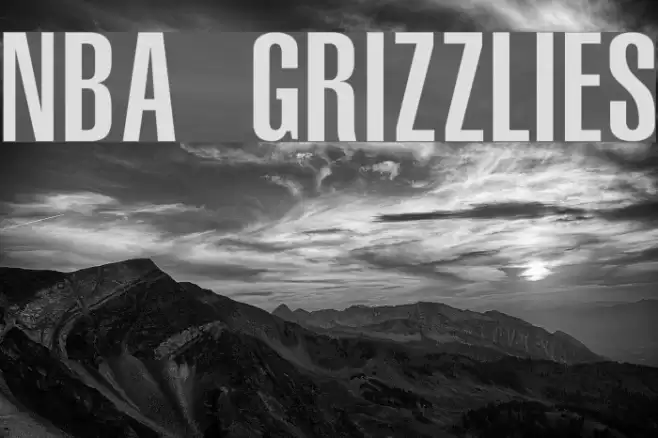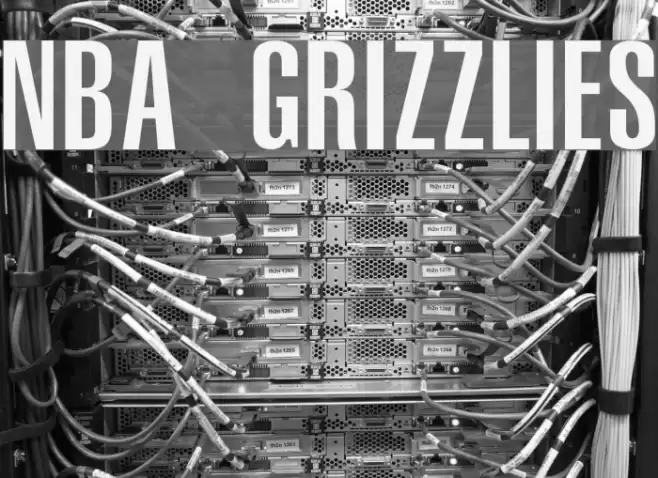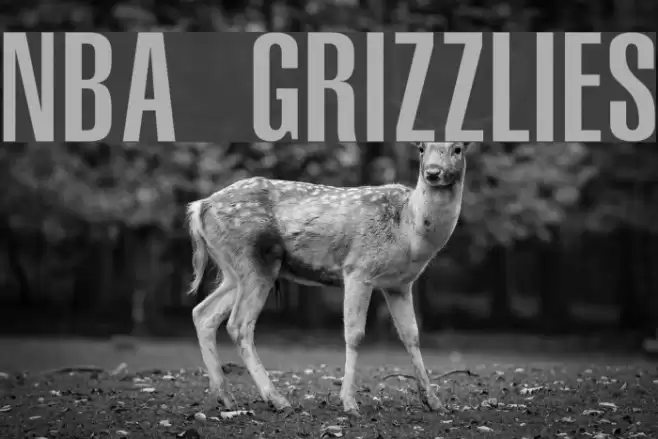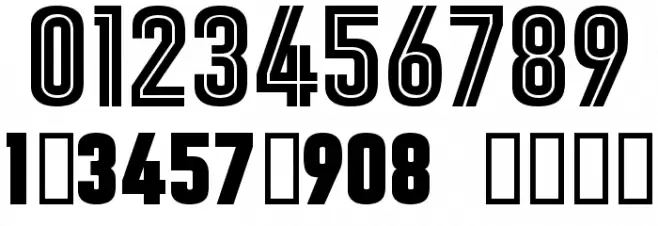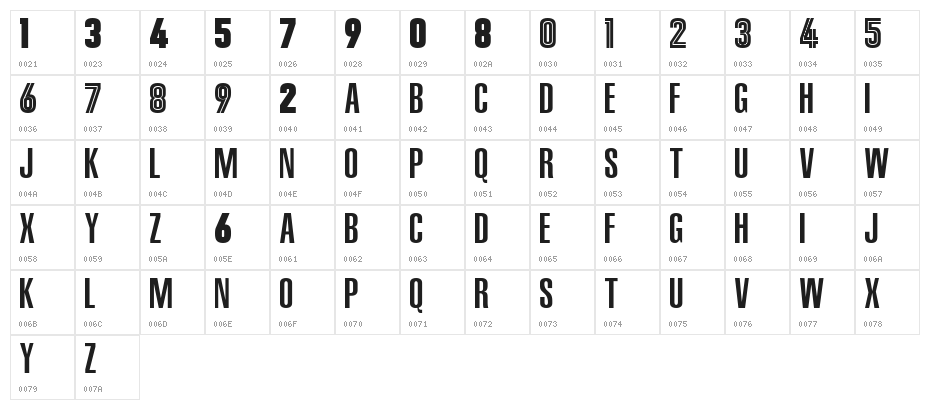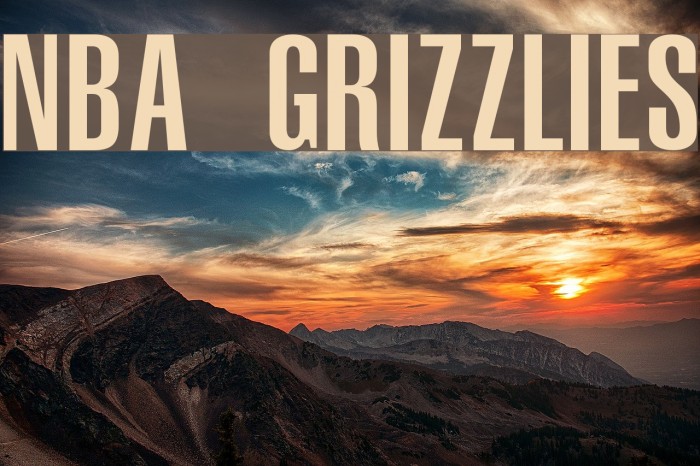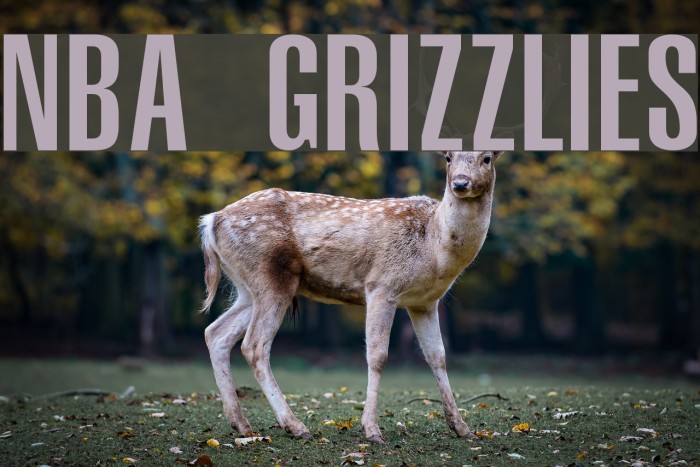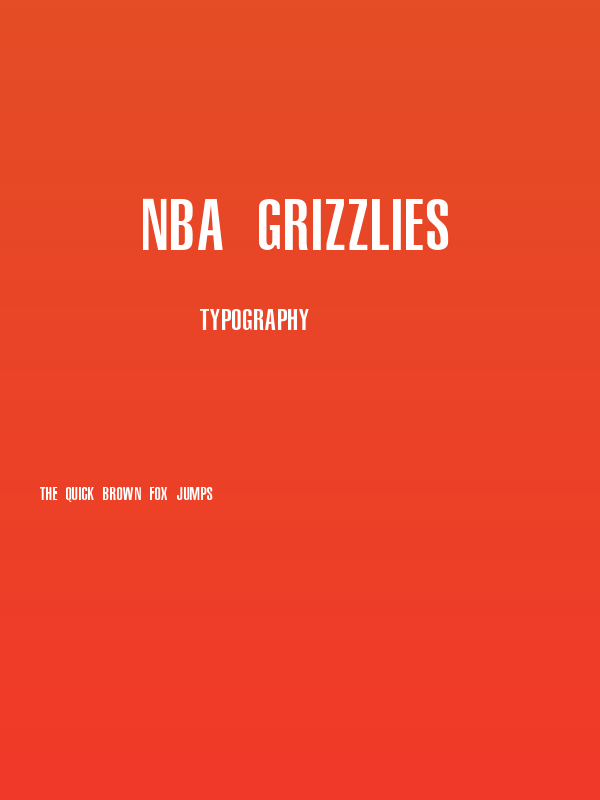
NBA Grizzlies Font
NBA Grizzlies Description
This font features a bold and impactful design, characterized by its tall, narrow letterforms and strong vertical emphasis. The uppercase letters are particularly striking, with a uniform stroke width that conveys a sense of strength and stability. The numbers are equally bold, maintaining the same vertical alignment and weight as the letters. This font's clean lines and lack of serifs give it a modern and professional appearance, making it suitable for a variety of applications where clarity and impact are essential.
A bold, modern sans-serif font with tall, narrow letterforms from Uncategorized fonts.
- Proposed Projects: Ideal for sports branding, posters, headlines, and logos requiring a strong visual impact.